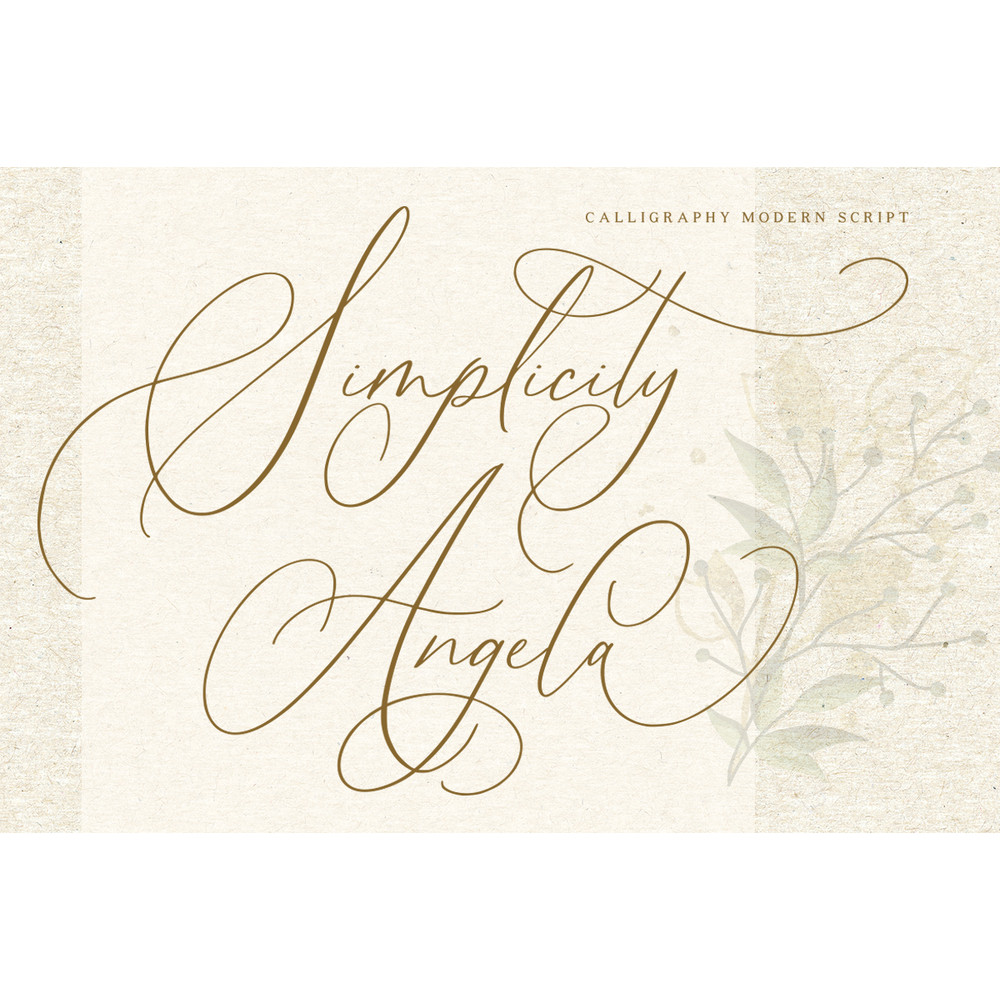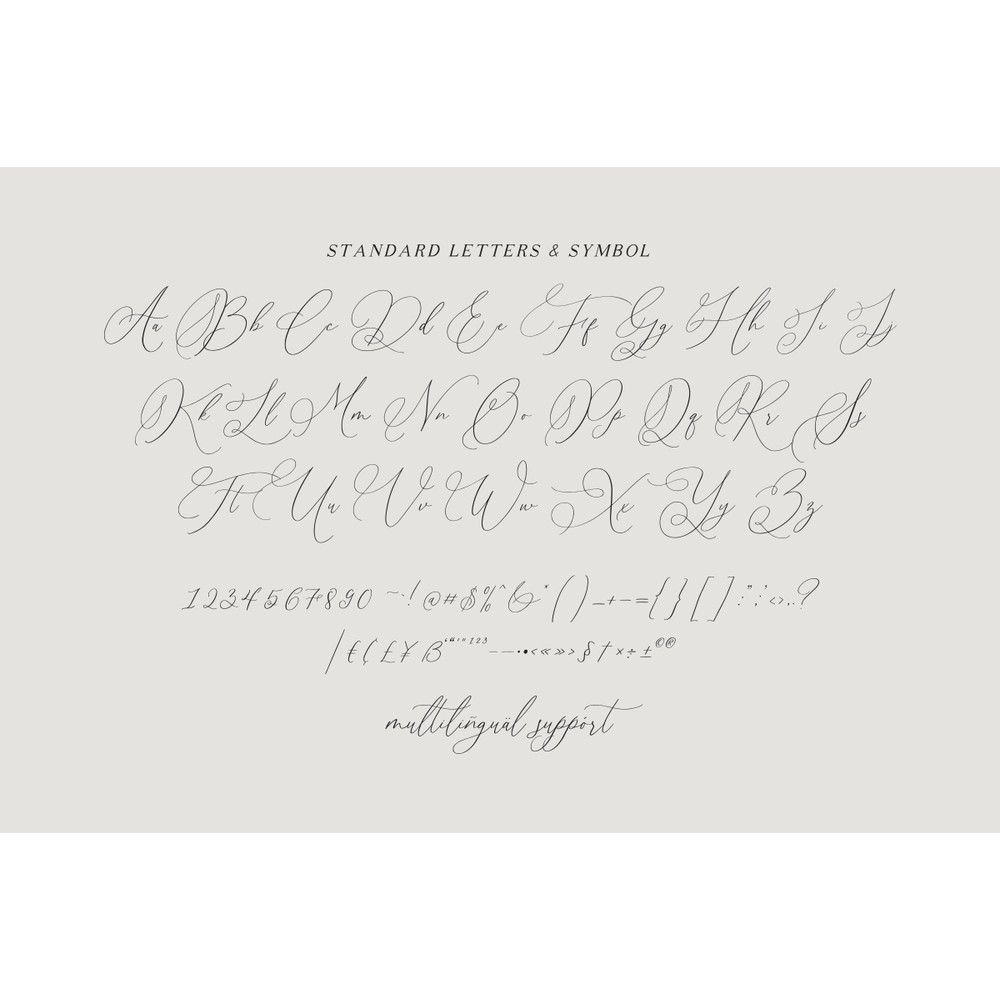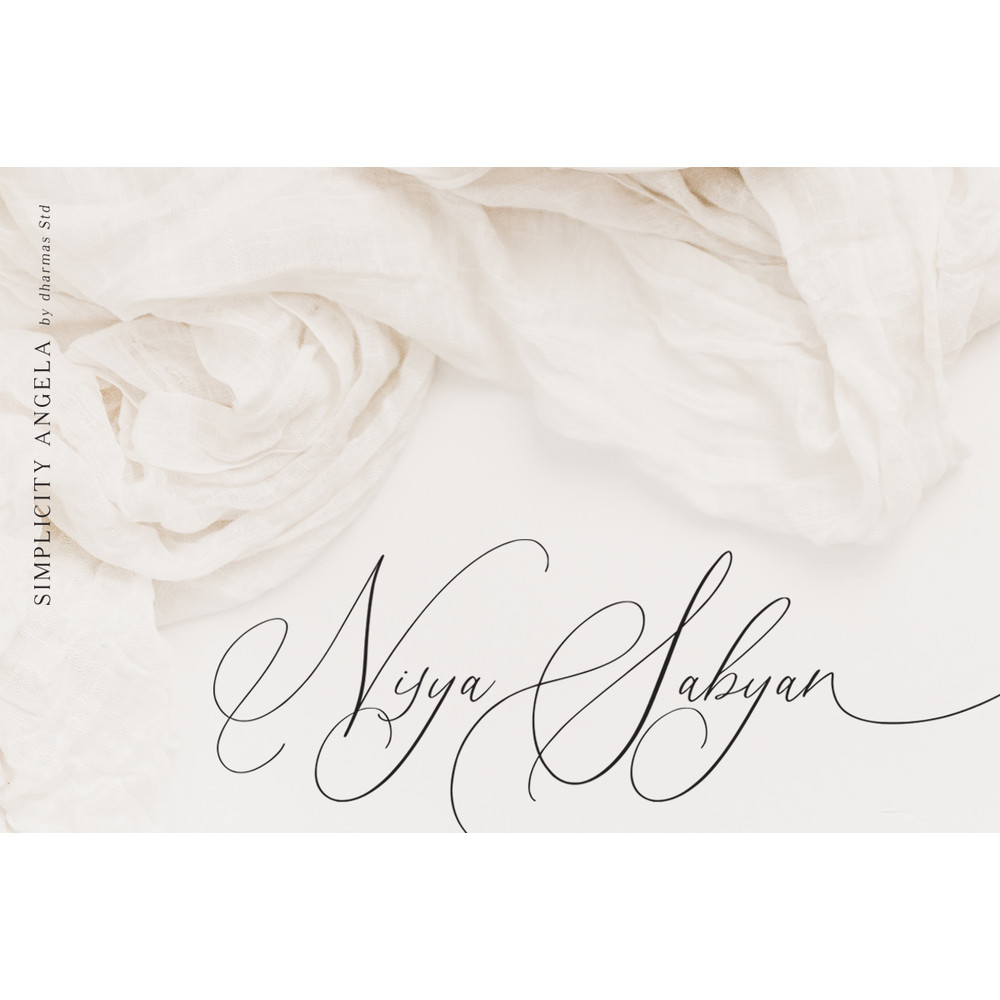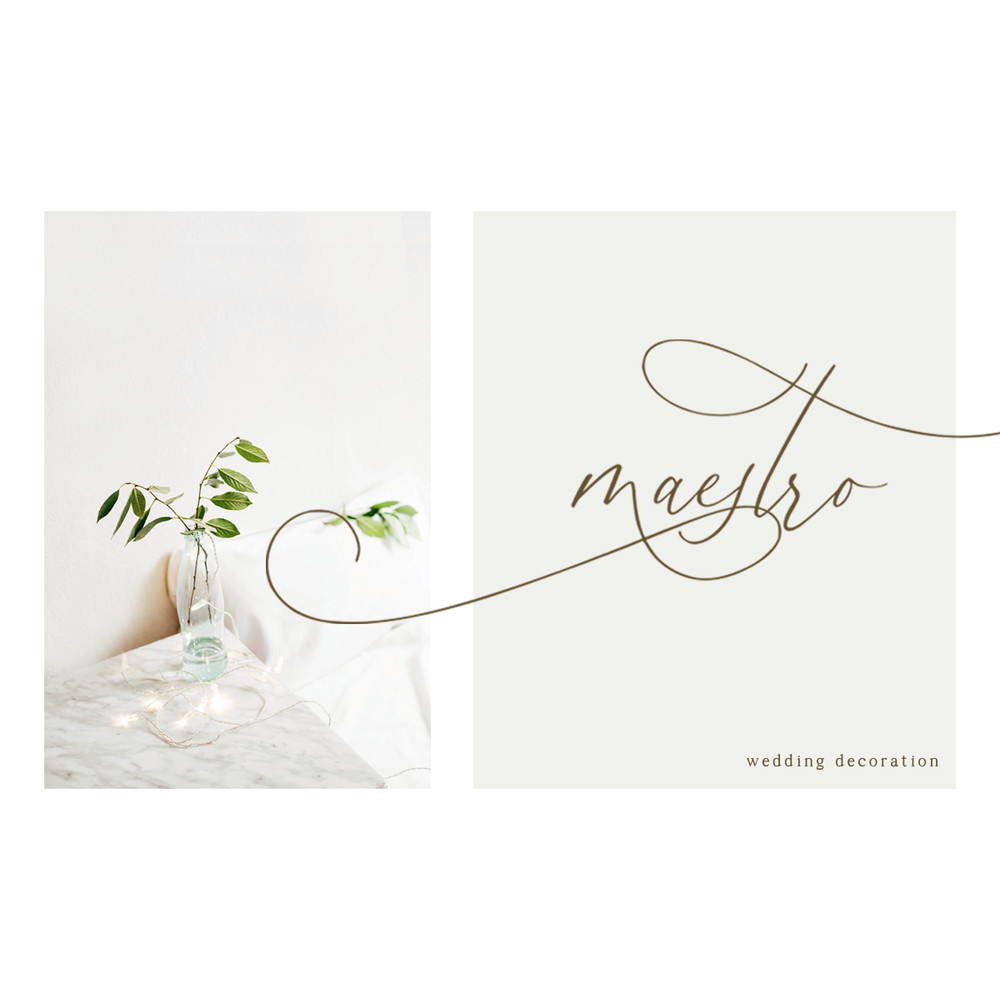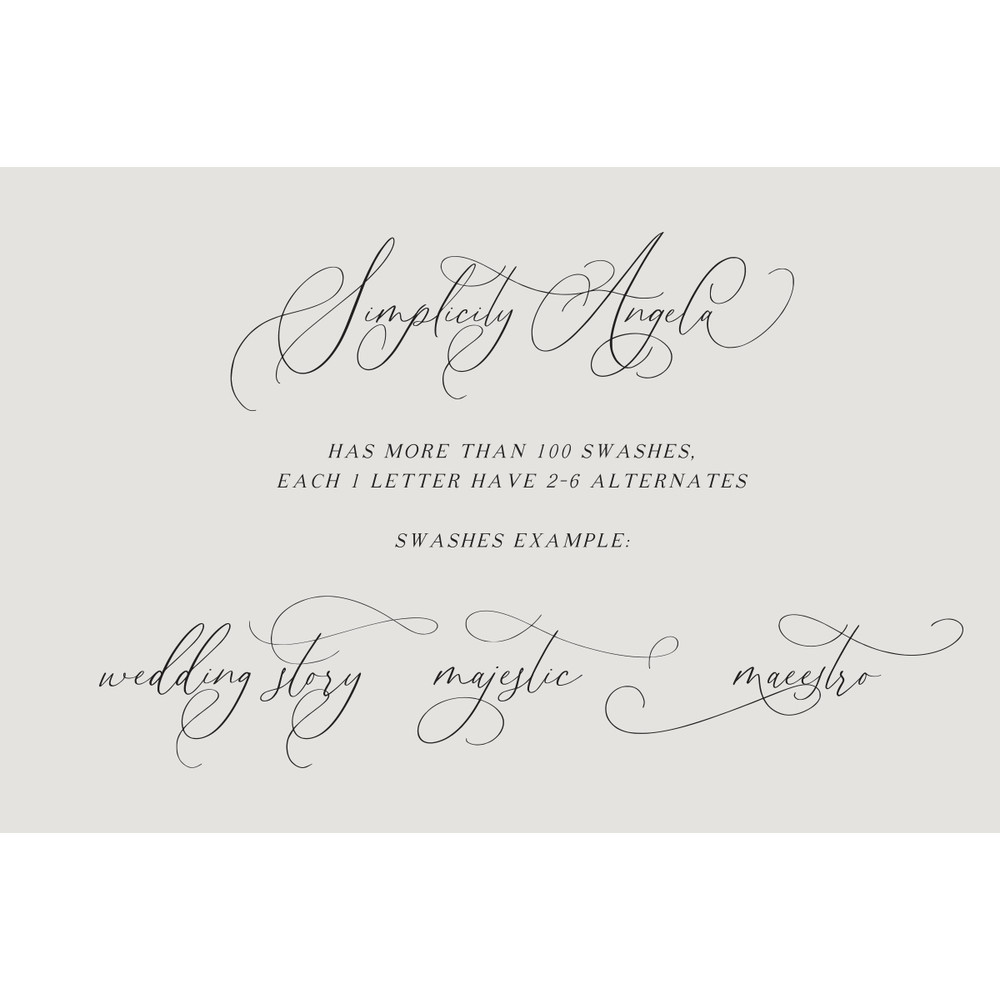
Simplicity Angela is elegant modern calligraphy font inspired by delicate inky hand lettering, gorgeous wedding calligraphy and trending minimal branding designs.
This beautiful font pair is for those who are needing of elegance and stylish for their designs and particularly well suited for wedding invitations, cards and feminine branding.
– More than 100 beautiful swashes in this font